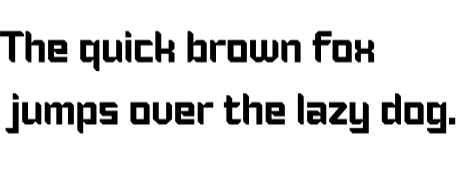
Black Invader Font: The Ultimate Modern Futuristic Display Typeface
In the realm of typography, fonts play a crucial role in shaping the visual identity of a brand, product, or concept. With the ever-evolving landscape of design, the demand for modern and futuristic typefaces has increased significantly. Introducing **Black Invader**, a cutting-edge display typeface that embodies the essence of next-generation aesthetics. This innovative font is specifically designed to cater to the needs of advanced technology, sci-fi concepts, eSports, gaming, robotics, and computing.
The Genesis of Black Invader Font
The creation of Black Invader Font is a result of meticulous research and a deep understanding of the design requirements of modern industries. The font’s design team aimed to craft a typeface that not only looks futuristic but also exudes a sense of power, sophistication, and innovation. Through a combination of traditional design techniques and modern digital tools, Black Invader Font was born, boasting a unique appeal that sets it apart from other typefaces.
Key Features of Black Invader Font
Black Invader Font is characterized by its sleek lines, geometric shapes, and a futuristic feel that instantly captures the attention of the viewer. Some of its key features include:
- Geometric Design: The font’s geometric design ensures a clean and precise look, making it perfect for digital platforms and high-tech applications.
- Bold and Futuristic: Black Invader’s bold appearance gives it a commanding presence, ideal for headlines, titles, and promotional materials.
- Versatility: Despite its strong futuristic appeal, the font is versatile enough to be used across various industries, from technology and gaming to robotics and computing.
- Excellent Legibility: Even at smaller sizes, Black Invader maintains its legibility, ensuring that the message is conveyed effectively across different mediums.
Applications of Black Invader Font
The potential applications of Black Invader Font are vast and varied. Its futuristic appeal makes it an ideal choice for:
1. Advanced Technology and Computing
In the tech industry, first impressions matter. Black Invader Font can be used in software interfaces, app designs, and website headers to convey a sense of innovation and cutting-edge technology.
2. eSports and Gaming
The gaming and eSports sectors require designs that resonate with a young, dynamic audience. Black Invader Font, with its bold and futuristic look, is perfect for logos, jersey designs, and in-game assets.
3. Sci-Fi Concepts and Robotics
For sci-fi movies, games, or promotional materials, Black Invader Font offers a typographic solution that instantly evokes a futuristic, otherworldly feel.
4. Marketing and Advertising
In marketing, capturing the audience’s attention is crucial. Black Invader Font, with its striking appearance, can be used in posters, banners, and digital ads to create impactful campaigns.
Why Choose Black Invader Font?
Choosing the right font for a project can be daunting, given the numerous options available. However, Black Invader Font stands out due to its:
- Unique Aesthetic: Its futuristic design is not just visually appealing but also aligns perfectly with the branding needs of modern industries.
- Flexibility: Black Invader Font can be used across a range of applications, from digital interfaces to print materials.
- Legibility: Despite its bold and futuristic design, the font maintains high legibility, ensuring effective communication.
How to Use Black Invader Font Effectively
To maximize the impact of Black Invader Font, consider the following tips:
- Pair with Complementary Fonts: When using Black Invader Font alongside other typefaces, choose fonts that complement its futuristic appeal. Sans-serif fonts work particularly well for creating a cohesive look.
- Adjust Font Sizes: For optimal readability, use Black Invader Font in larger sizes for headlines and titles, and opt for simpler fonts in smaller sizes for body text.
- Experiment with Colors: While black is a standard color for the font, experimenting with gradients, metallic effects, or vibrant colors can enhance its futuristic appeal.
Black Invader Font is more than just a typeface; it’s a design statement that embodies the spirit of innovation and forward-thinking. Whether you’re working on a tech startup’s branding, designing the next big eSports tournament, or crafting a sci-fi game, Black Invader Font offers the perfect blend of style, versatility, and futuristic appeal. By incorporating this modern, cutting-edge display typeface into your projects, you’re not just choosing a font – you’re making a bold statement about the future.